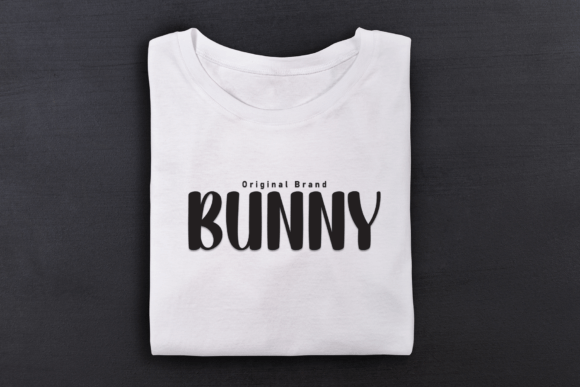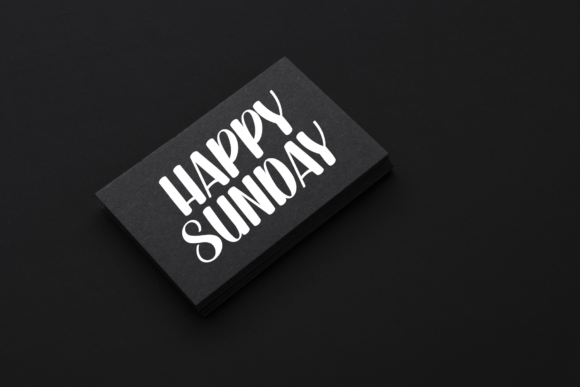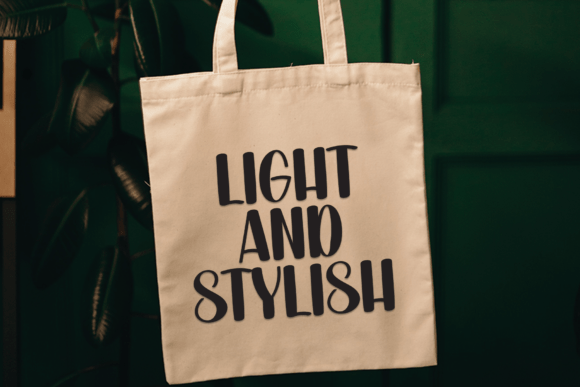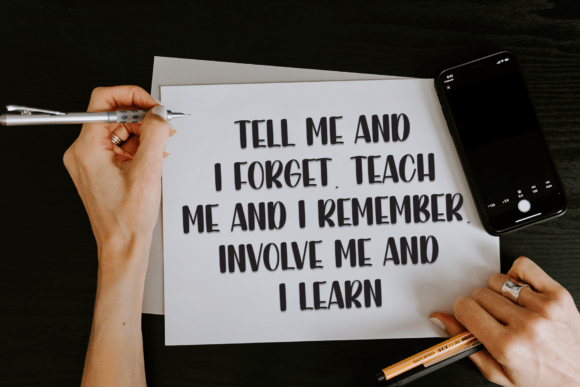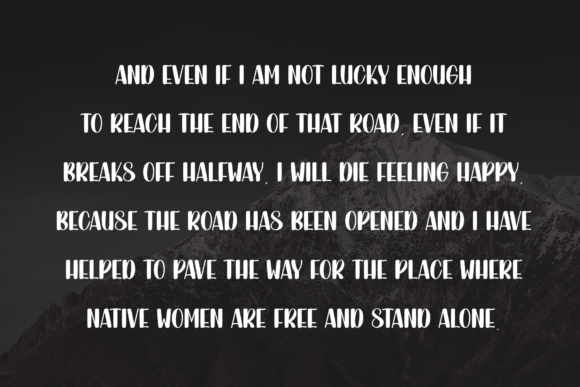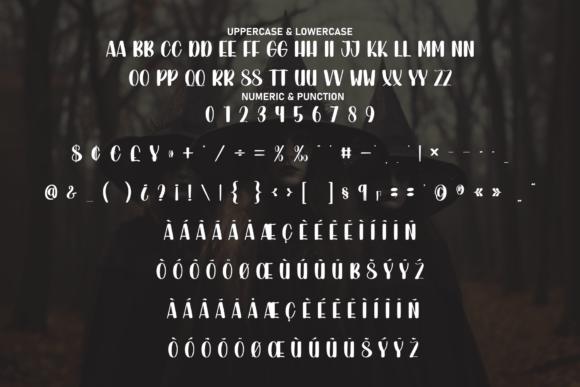
Introducing Black Witches Font: A Charming Handwritten Display Font
Are you looking for a font that exudes sweetness and friendliness? Do you want to add a touch of whimsy to your designs? Look no further than Black Witches Font, a charming and amicable handwritten display font that’s perfect for a variety of creative projects.
A Delightful and Sprightly Style
Black Witches Font is a delightful and sprightly font that’s sure to capture the attention of your audience. Its playful and carefree style makes it an ideal choice for crafting wedding invitations, greeting cards, or any design that calls for a wisp of whimsy. Whether you’re a designer, crafter, or DIY enthusiast, this font is sure to inspire your creativity.
Black Witches Font is particularly well-suited for wedding invitations and greeting cards. Its sweet and charming style adds a touch of romance and elegance to any design, making it perfect for special occasions. Imagine creating beautiful wedding invitations, save-the-date cards, or thank-you notes that set the tone for a joyous celebration.
Adding Whimsy to Your Designs
But Black Witches Font is not just limited to wedding invitations and greeting cards. Its playful style makes it an excellent choice for adding a touch of whimsy to any design. Use it to create eye-catching posters, fun and quirky social media graphics, or even cute and playful packaging labels. The possibilities are endless!
Enrich Your Artistic Creations
Black Witches Font is more than just a font – it’s a way to enrich your artistic creations with a touch of personality and charm. Its entertaining and heartwarming style is sure to bring a smile to your audience’s faces, making your designs more engaging and memorable. Whether you’re a professional designer or a DIY enthusiast, this font is sure to inspire your creativity and take your designs to the next level.
Key Features of Black Witches Font
- Charming and amicable handwritten display font
- Delightful and sprightly style
- Perfect for wedding invitations, greeting cards, and other special occasions
- Ideal for adding a touch of whimsy to any design
- Entertaining and heartwarming style
Tips for Using Black Witches Font
- Use it as a display font to add a touch of whimsy to your designs
- Use it to create eye-catching headings and titles
Black Witches Font is a charming and amicable handwritten display font that’s perfect for adding a touch of sweetness and friendliness to your designs. Its delightful and sprightly style makes it an ideal choice for wedding invitations, greeting cards, and other special occasions. With its entertaining and heartwarming style, this font is sure to inspire your creativity and take your designs to the next level. So why wait? Download Black Witches Font today and start creating your own whimsical designs!